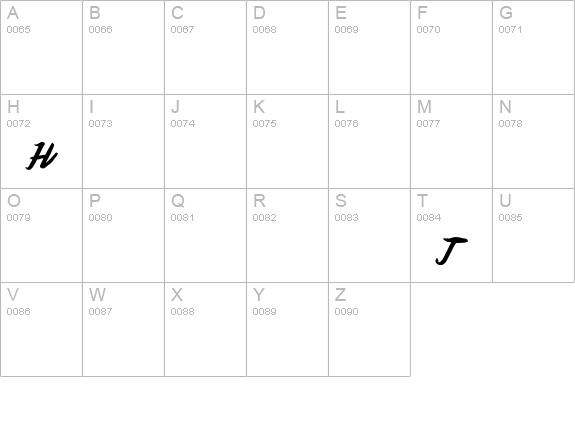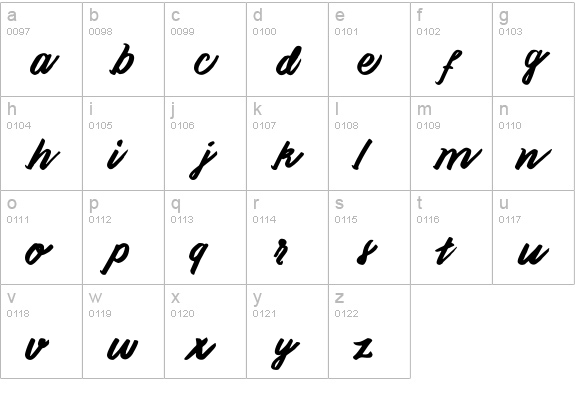
Handoubt Font Details
Handoubt is a beautifully crafted font that effortlessly combines elegance with a touch of playfulness. Its smooth curves and unique letterforms make it perfect for a wide range of creative projects, from branding and logos to invitations and social media graphics. With its versatile nature, Handoubt can adapt to any design style, whether it be modern and minimalistic or vintage and whimsical. Its clean lines and balanced proportions ensure legibility at any size, making it suitable for both print and digital applications. But what sets Handoubt apart is its availability as a free font. Yes, you read that right - Handoubt is freely available to download at FontsMarket.com. This means that you can bring its charm and character to your designs without spending a dime. Whether you're a professional designer or a passionate hobbyist, Handoubt offers an opportunity to elevate your creations without breaking the bank. So why wait? Take advantage of this incredible offer and unlock the creative possibilities that Handoubt has to offer. Download it for free at FontsMarket.com and let your imagination run wild. With Handoubt, you'll have a font that not only catches the eye but also adds a touch of uniqueness to your design projects. Don't miss out on this opportunity - get Handoubt today and watch your designs come to life.